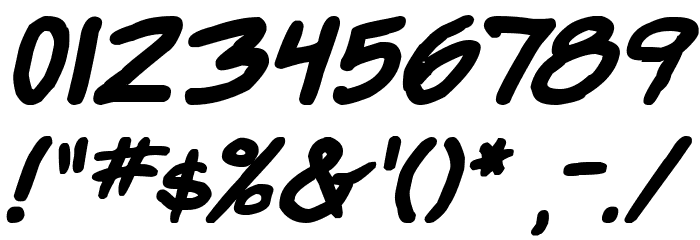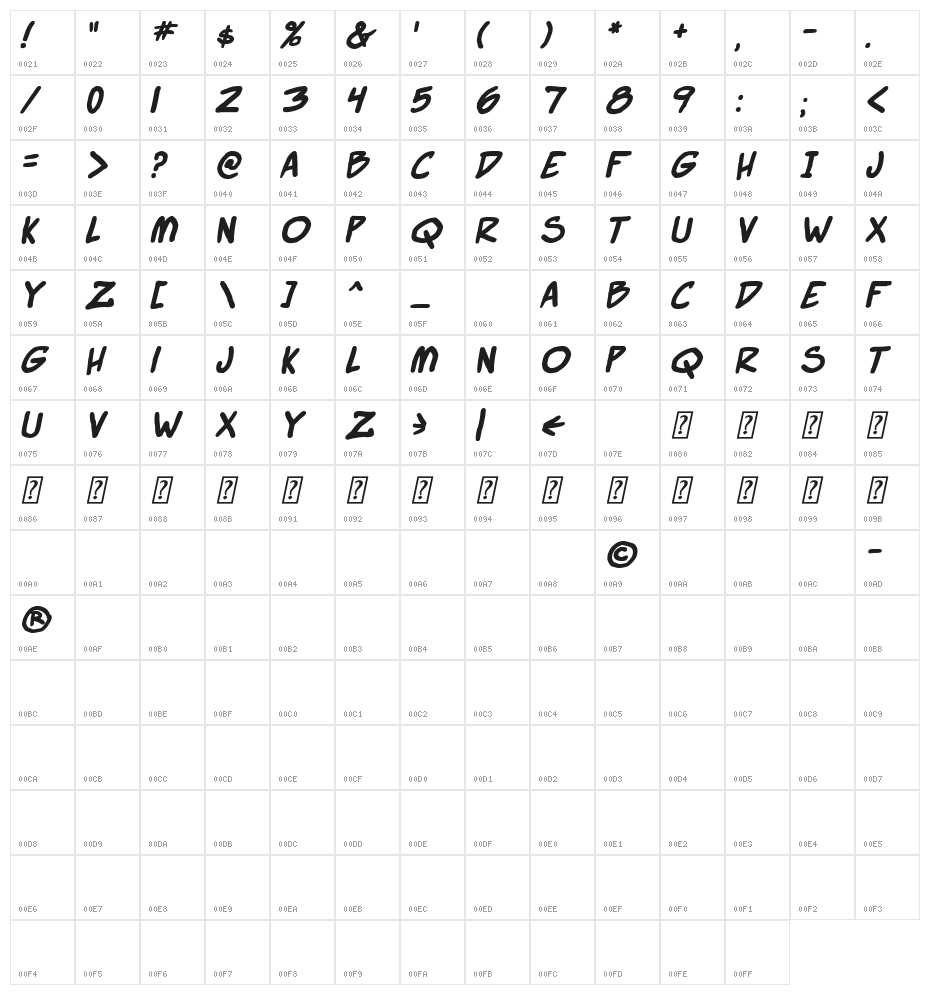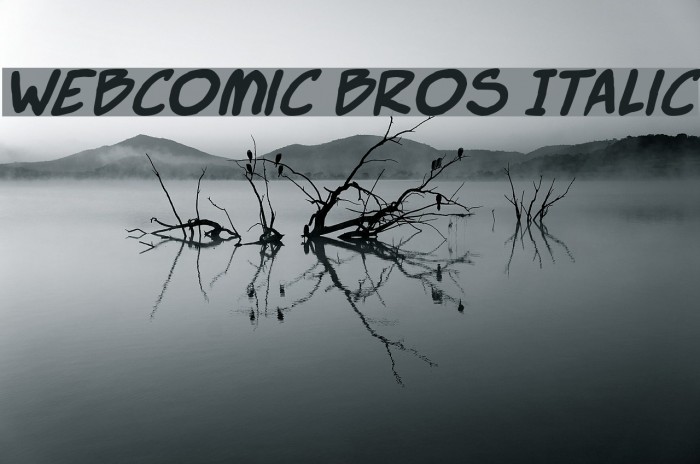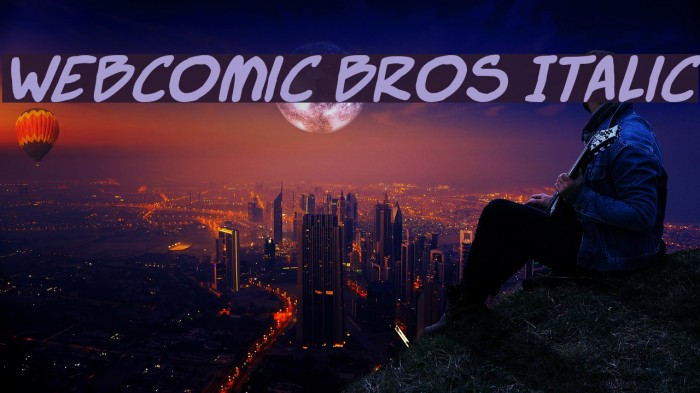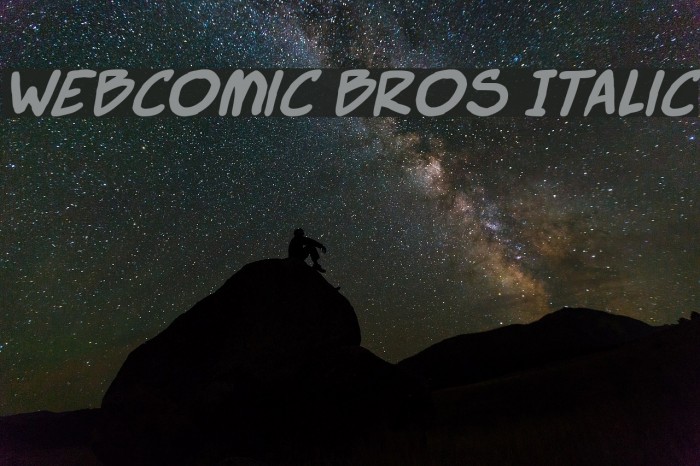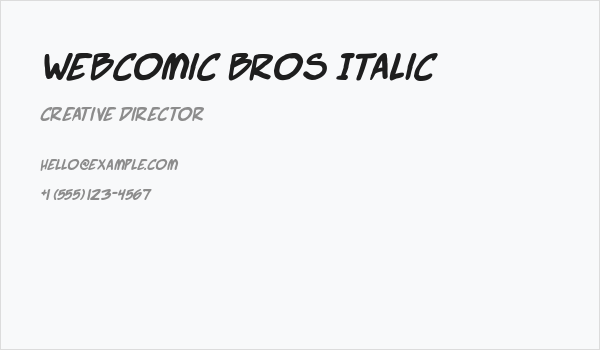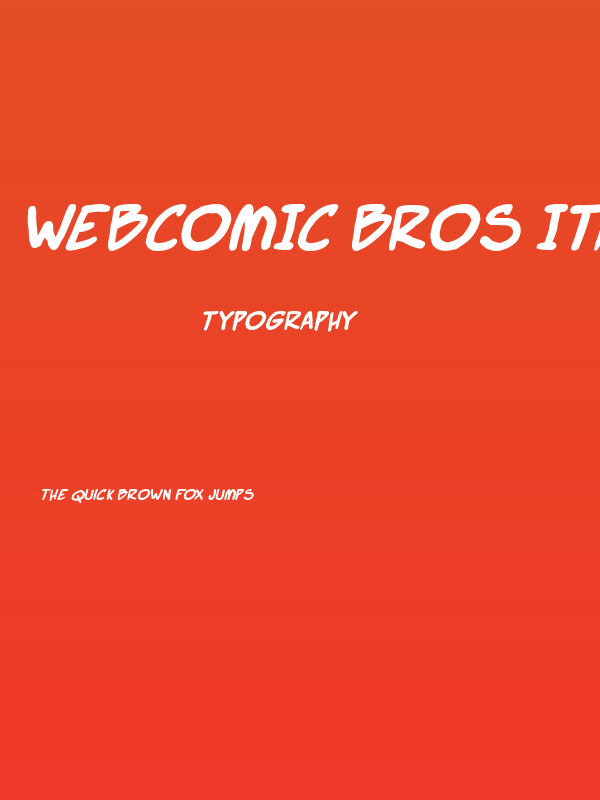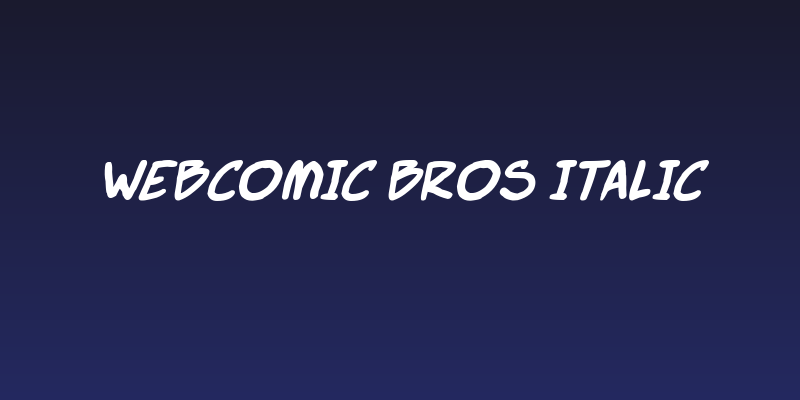
Webcomic Bros Italic Font
Webcomic Bros Italic Description
This font features a playful and dynamic handwritten style, characterized by its bold and italicized appearance. The letters are slightly slanted, giving a sense of motion and energy. The strokes are thick and consistent, providing a strong visual impact. The characters are rounded with smooth curves, adding to the casual and friendly feel. The numbers and special characters maintain the same lively style, ensuring uniformity across all elements. This font is ideal for projects that require a fun and informal touch.
| Proposed Projects | Perfect for comic books, children's books, playful branding, and informal invitations. |